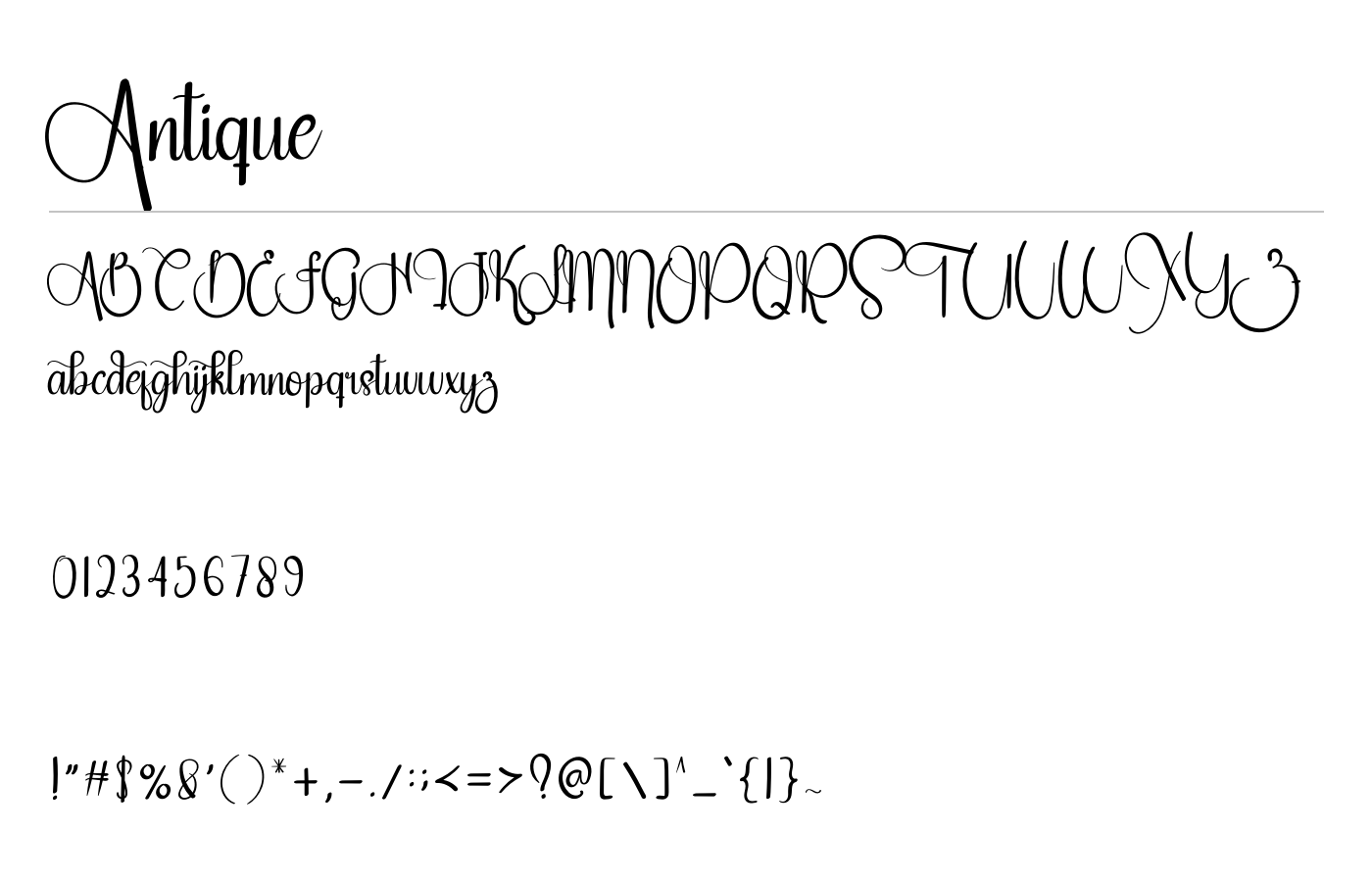
Antique is a delicate, decorative script font that features elegant, flowing letterforms with high contrast between thin and thick strokes. Its tall x-height and intricate curls give it a vintage, sophisticated feel, making it ideal for luxury branding, invitations, or stylish editorial use where an ornamental touch is desired. This font works best in headlines or display settings, adding a graceful and artistic flair to any design.
Antique Font